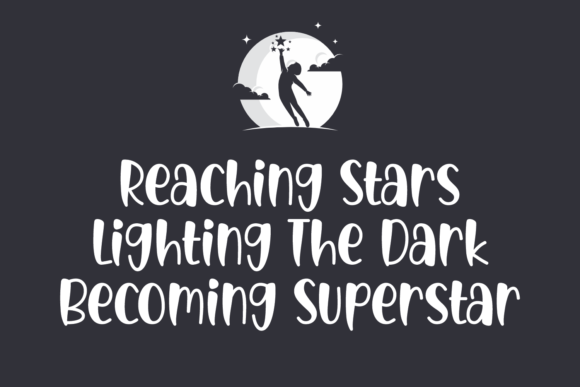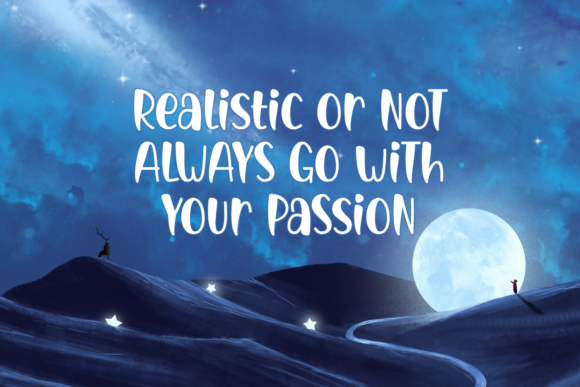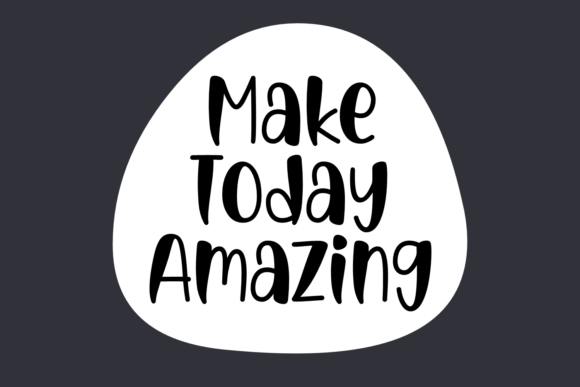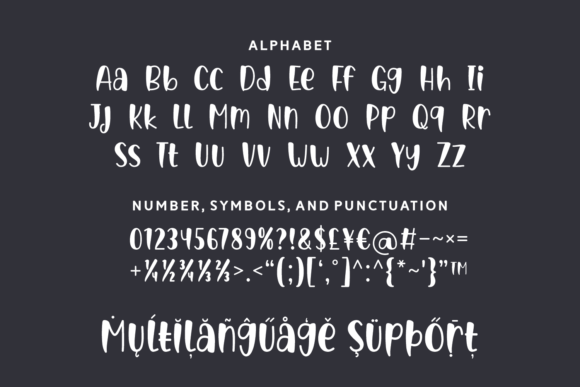
Introduction to Above the Moon Font
Above The Moon is a playful and creative display font with a cute handwritten style.
You can successfully use this font for creating headlines, books, posters, branding, logos, t-shirts, quotes, and anything else you have in your mind .
Why Choose Above the Moon Font?